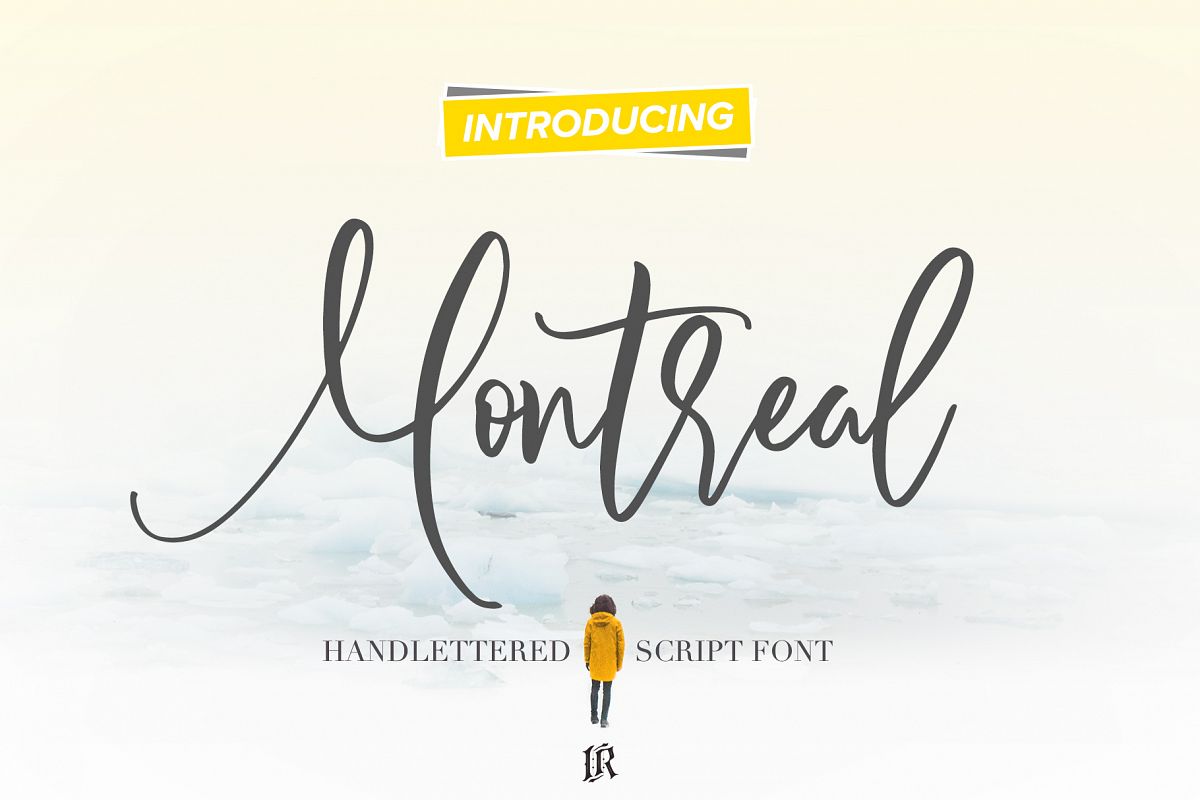
Montreal Script Font
Montreal Script Font is handlettered font with multilingual support. It's ideal for t-shirts, magazines, phone covers, social media, restaurant menus, greeting cards, invitations, weddings, headers and many more.Download folder includes